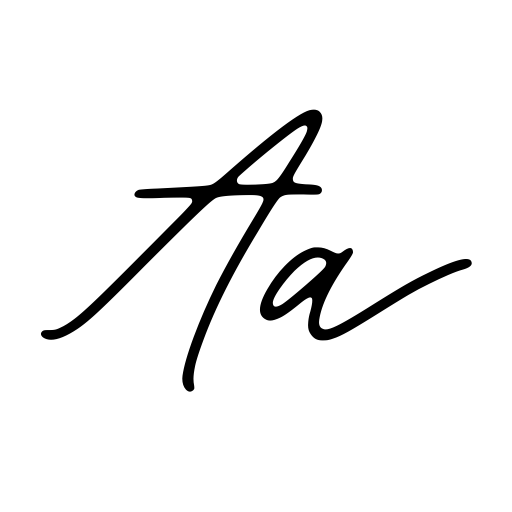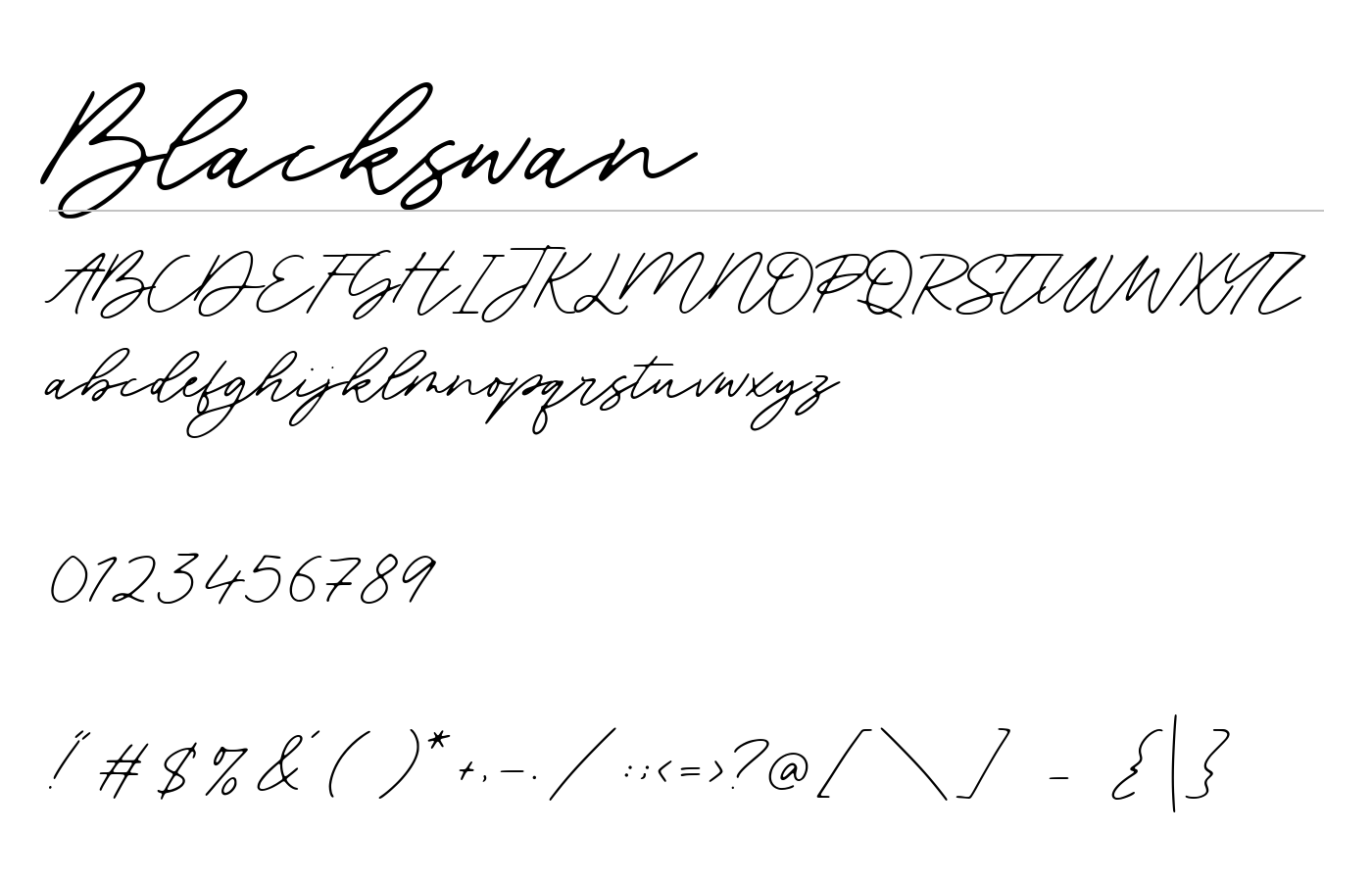
Blackswan is an elegant, flowing script font with a light weight and a delicate, handwritten feel. Its slender, slightly slanted letterforms convey a sense of sophistication and grace, making it ideal for feminine and stylish branding, invitations, and fashion headlines. This font’s refined curves and airy spacing add a personal, artistic touch that works beautifully in designs needing a chic and modern handwritten look.
Blackswan Font
About Blackswan Font
| Font family | Blackswan Font |
| Designer | Letterative Studio |